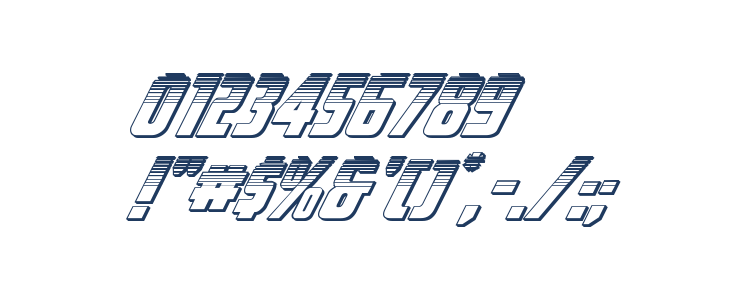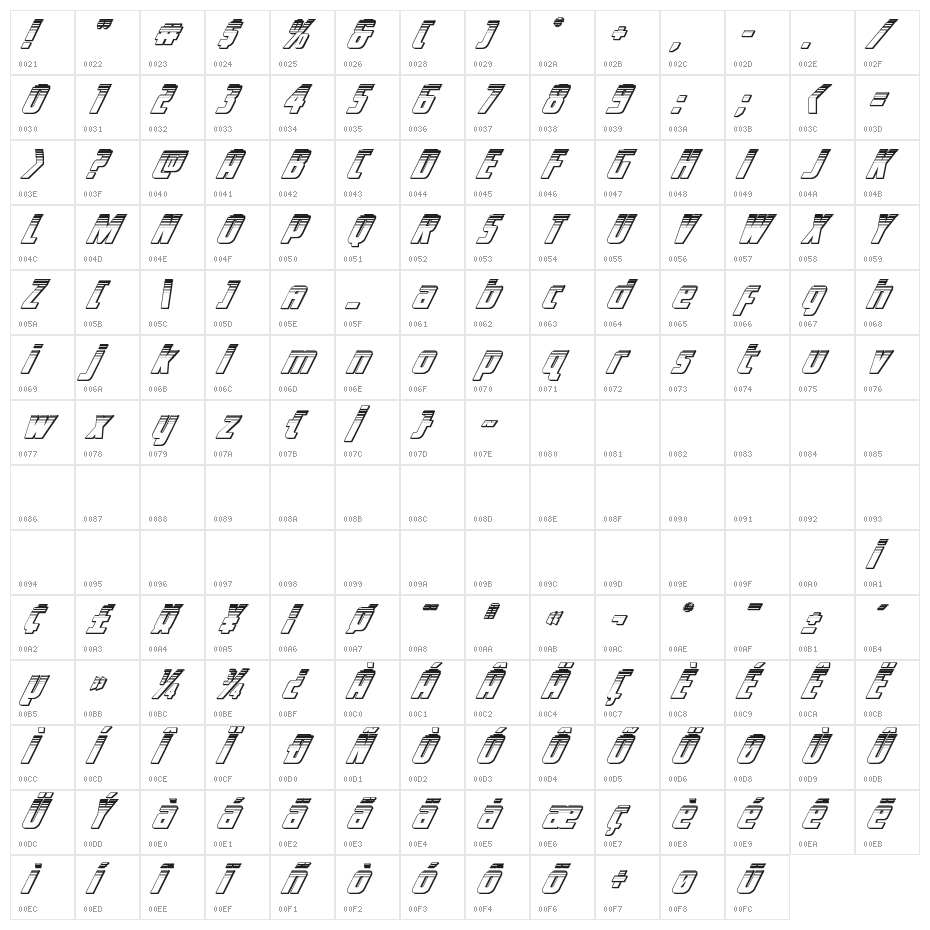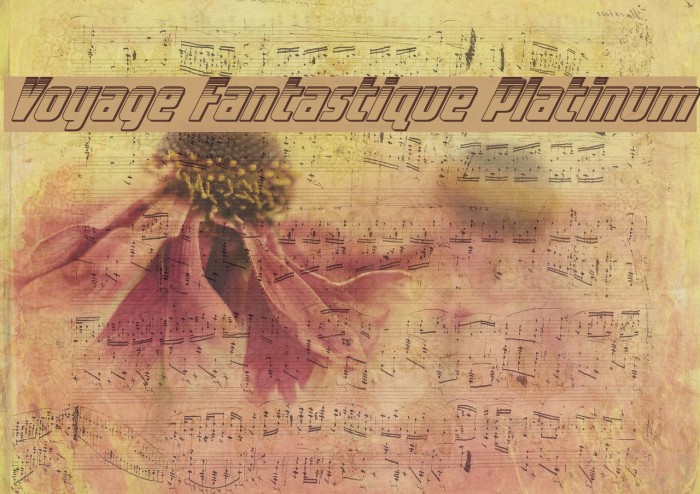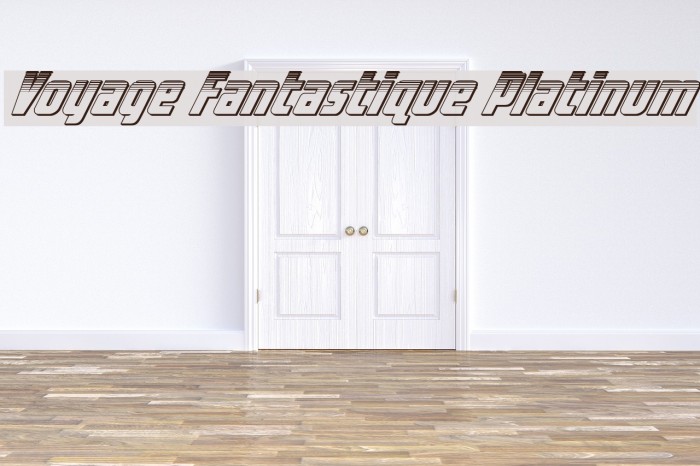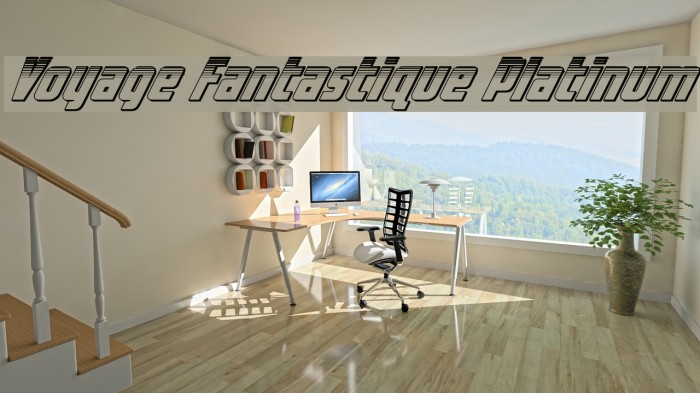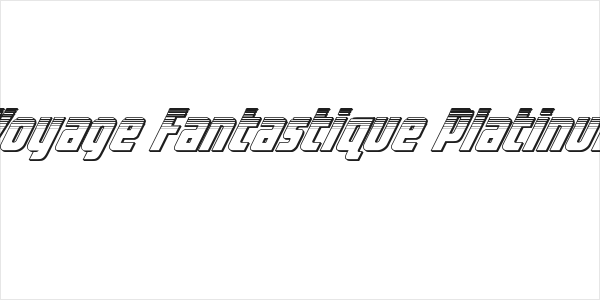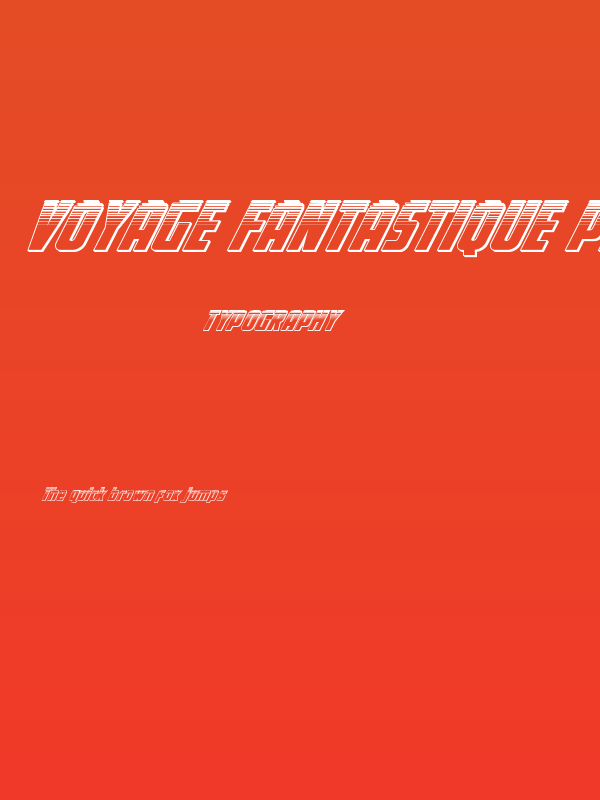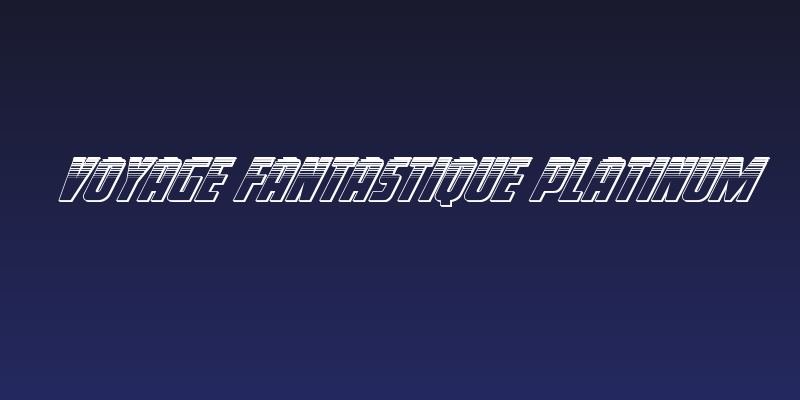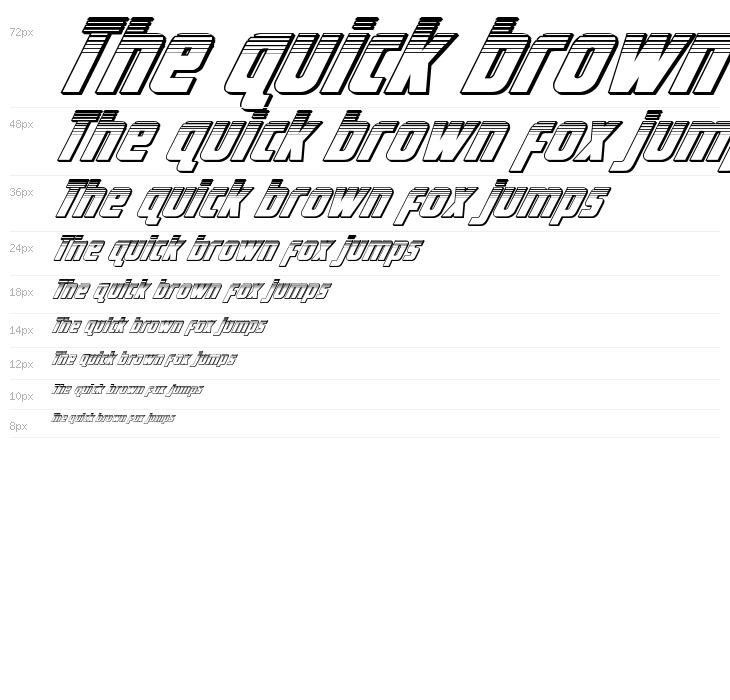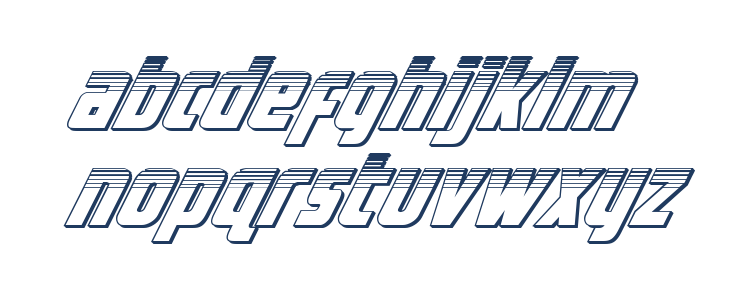
Voyage Fantastique Platinum Font
Voyage Fantastique Platinum Description
This font features a bold, three-dimensional design with a futuristic and dynamic appearance. The letters are slanted, giving a sense of motion and speed, enhanced by the layered shadow effect that adds depth. The uppercase and lowercase characters maintain a consistent style, with sharp angles and clean lines. The numbers and special characters are equally bold and follow the same aesthetic, making them stand out with a strong presence. This font is ideal for projects that require a modern and eye-catching look.
Proposed ProjectsIdeal for sci-fi themed posters, video game titles, and branding that requires a modern, dynamic look.